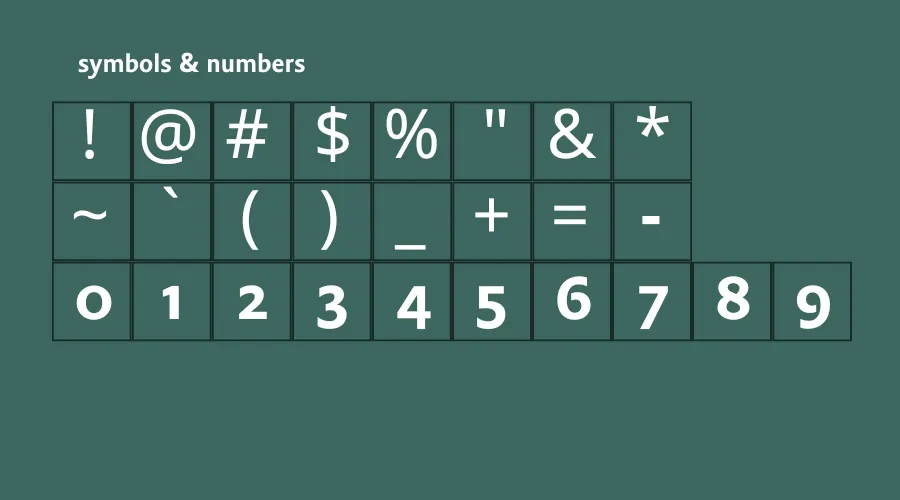
Phlex Font
About Phlex Font
Adam Hayes and Nick Hayes designed Phlex Font that belongs to the sans serif text style family. It is a gaming typeface design that is provided in the free version.
Copying and pasting in this typeface’s finest feature. It is simple to use and allows you to produce classic patterns. This typeface’s generating tool will transform your simple design into a beautiful manner.
You may use this gorgeous typeface for all of your creative creations and projects. It may be used for a variety of activities, including creating banner ads, logo designs, and social networking posts.
It may be paired with a number of other typefaces. Wild words font is the typeface that most closely is similar to this one. These two typefaces together will give the top choice to the audience.
This typeface has a wide range of applications, and countless individuals have also already downloaded it. The typeface may be used in a variety of contexts, including logo creation, video game design, comic book cover design, creating themed posters and banners, and more.